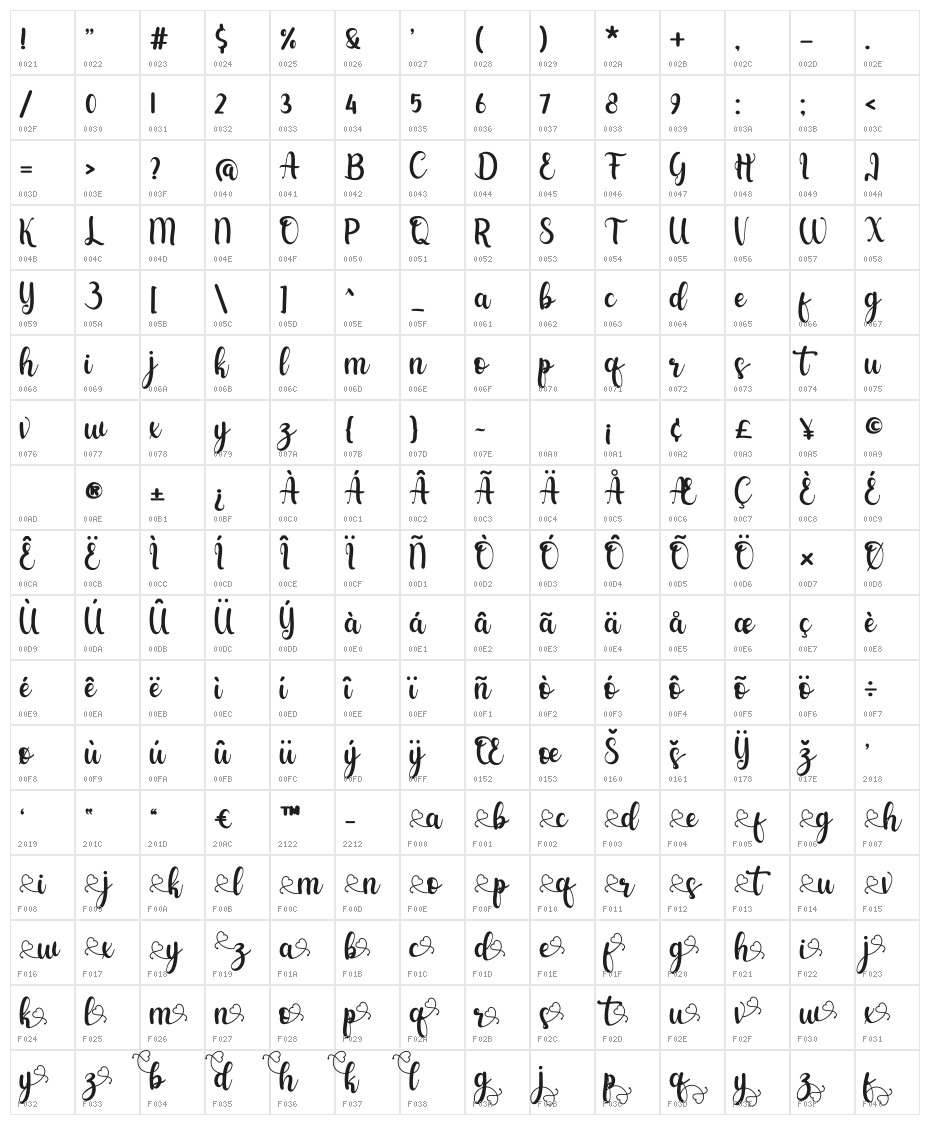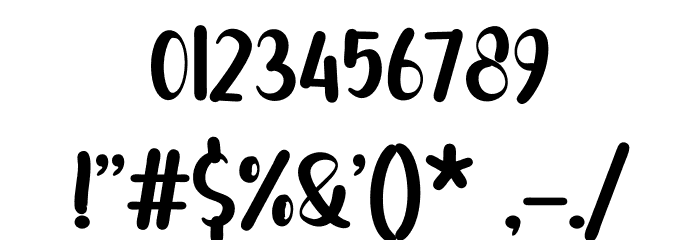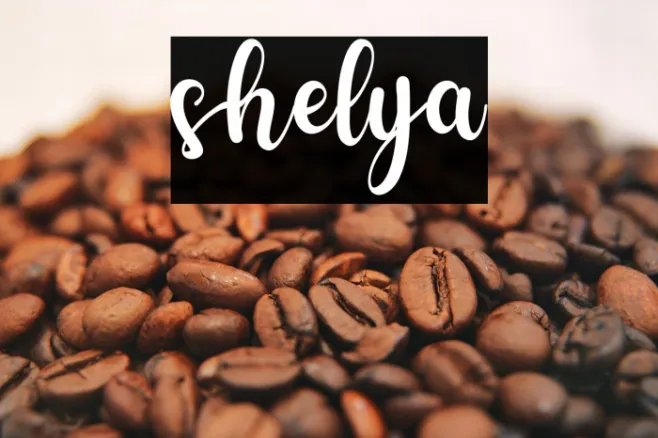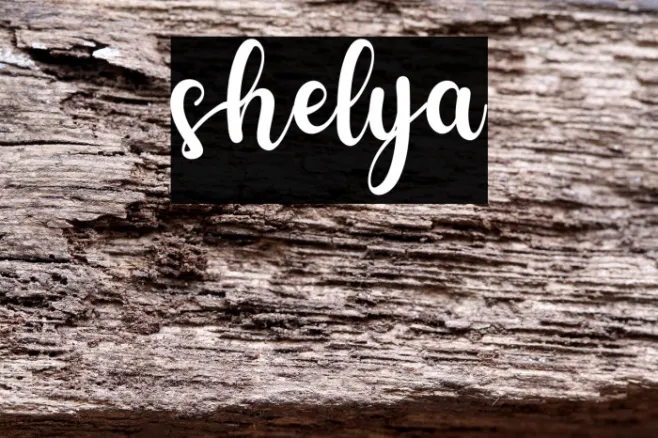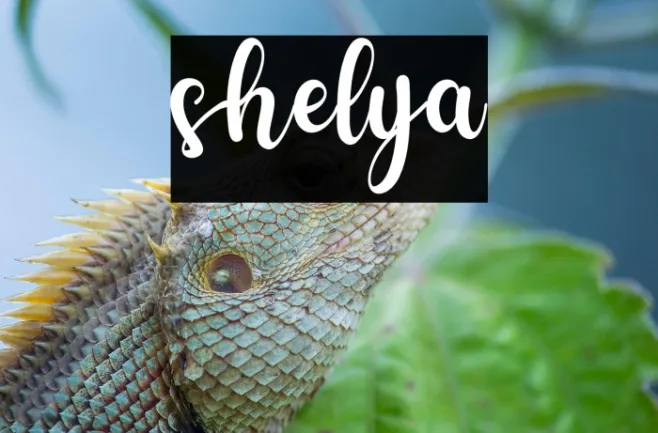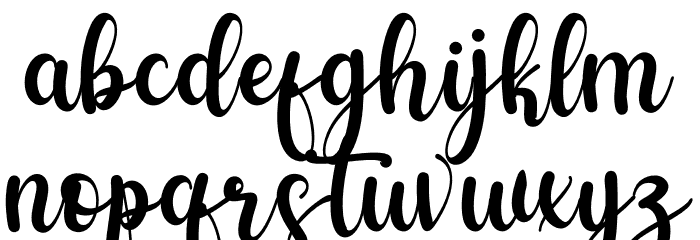
shelya Font
shelya Description
This font features a playful and elegant script style with a handwritten appearance. The uppercase letters are bold and flowing, with a slight slant that adds a dynamic feel. The lowercase letters are more intricate, with loops and curves that enhance the font's decorative nature. The numerals are consistent with the overall style, maintaining the same boldness and fluidity. Special characters are well-integrated, offering a cohesive look across all glyphs. This font is ideal for projects that require a personal touch, such as invitations, greeting cards, and branding materials.
| Proposed Projects | Ideal for invitations, greeting cards, branding, and decorative projects. |